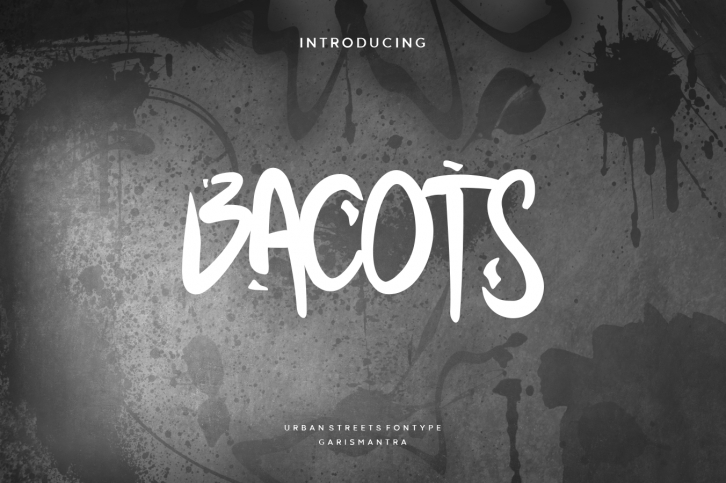
Bacots is a cool display font that has a street art vibe. This font is suitable for designs such as t-shirts, sportswear, logos, advertisements, clothing, and more.